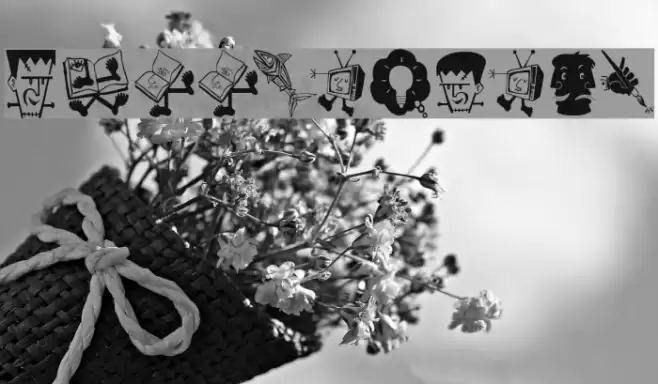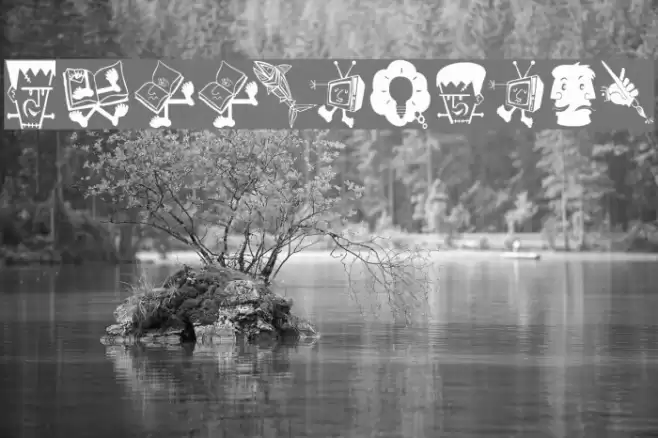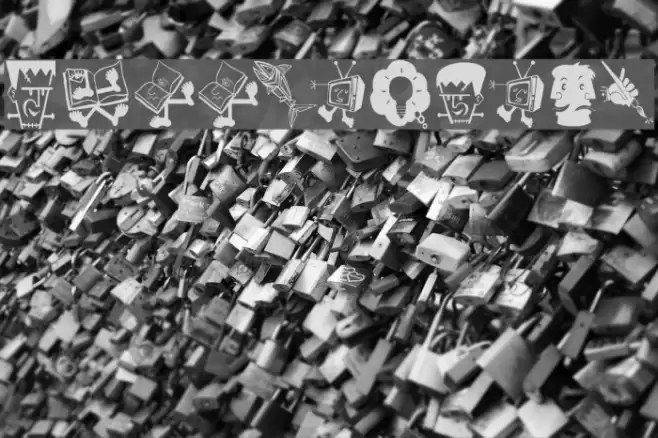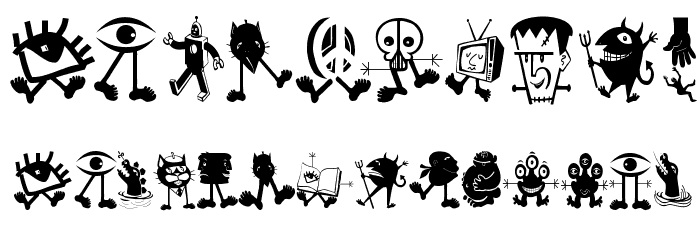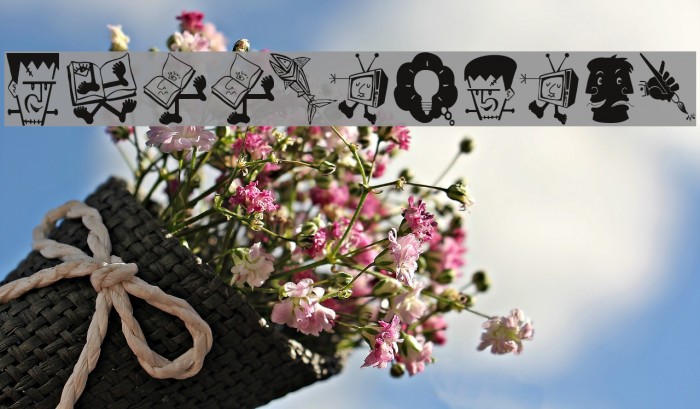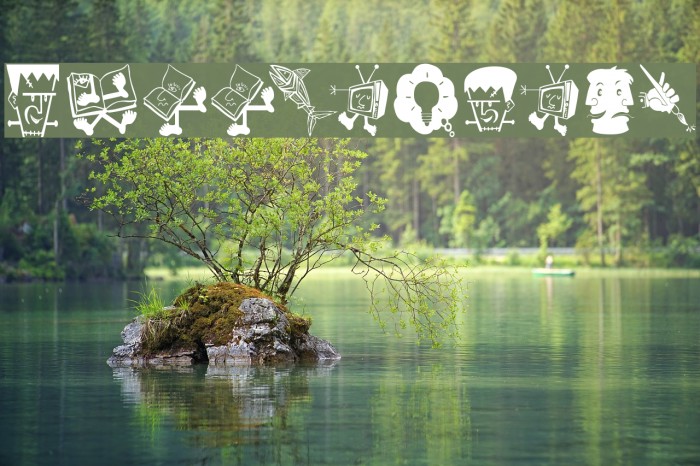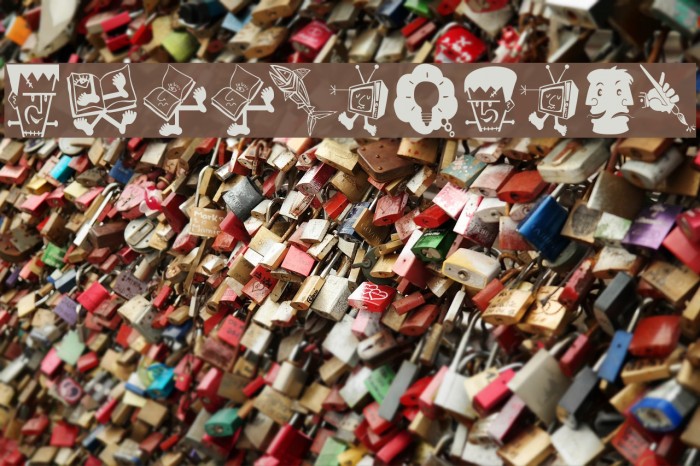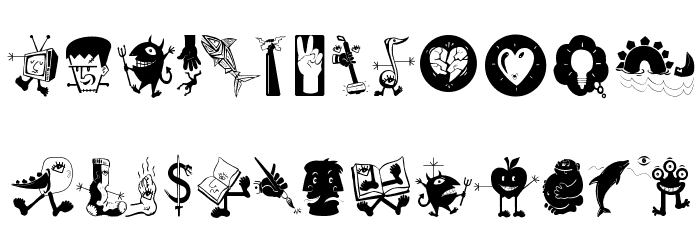
Surrealbats Font
Surrealbats Description
This collection features a series of whimsical and surreal characters, each with a unique and playful design. The characters range from quirky monsters to abstract figures, each exuding a sense of fun and creativity. The designs are bold and imaginative, with a strong emphasis on individuality and expression. The characters are depicted in various poses and activities, adding a dynamic and lively feel to the collection. The use of black and white enhances the boldness of each character, making them stand out vividly. This collection is perfect for projects that require a touch of humor and creativity, offering a wide range of possibilities for artistic expression.
A whimsical collection of surreal and playful character designs from Uncategorized fonts.
- Proposed Projects: Ideal for children's book illustrations, creative branding, playful merchandise, and unique poster designs.
- Overall Style: Whimsical, Surreal, Playful
- Use Case: Illustrations, Branding, Merchandise